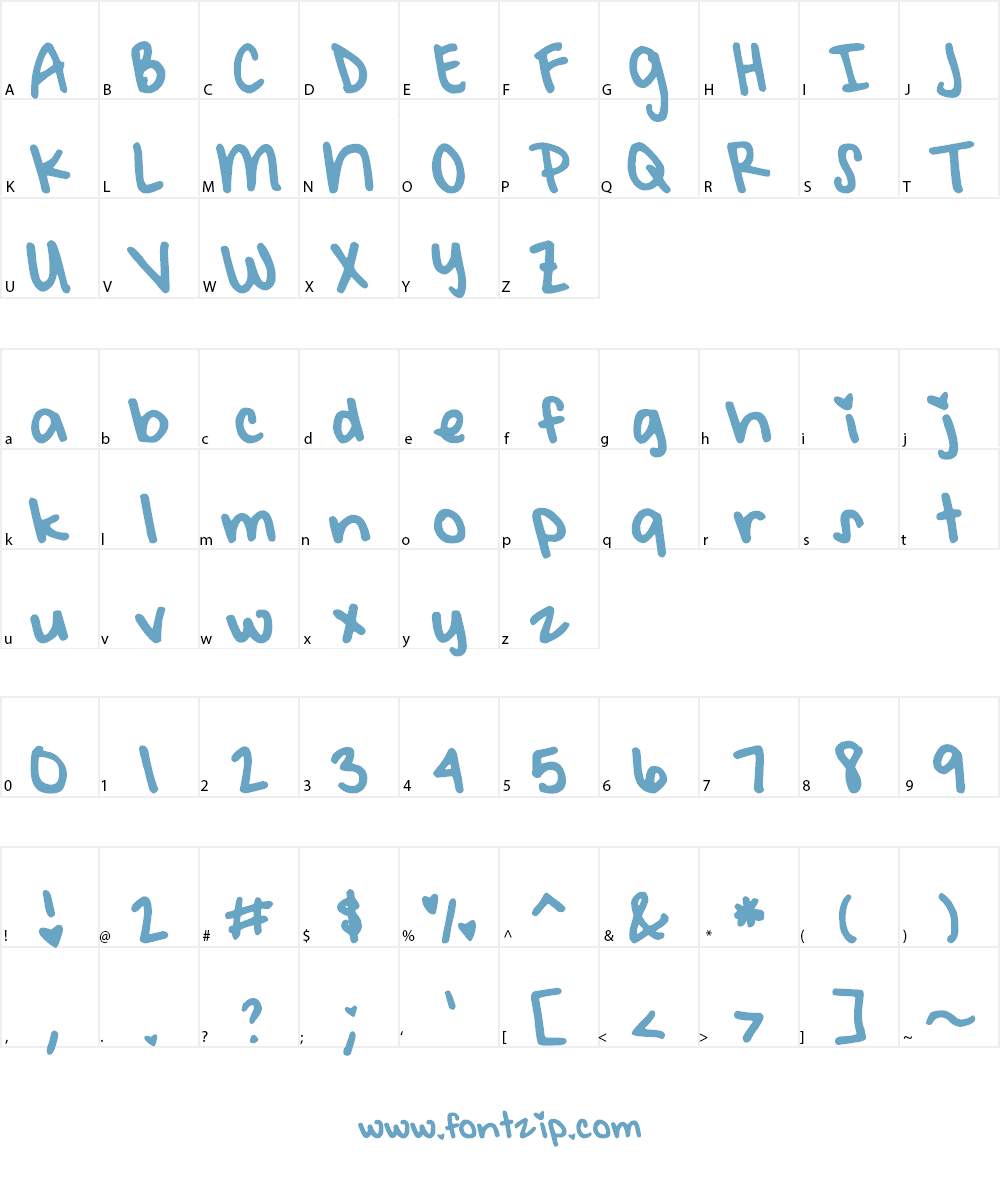
A cute, handwritten, teenage girl font with European language characters and lots of little hearts. This font is free for personal, and a commercial-use license is available at http://darcybaldwin.com/commercial-use/